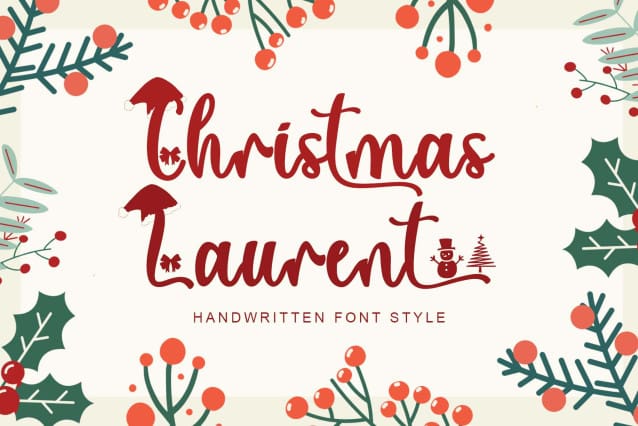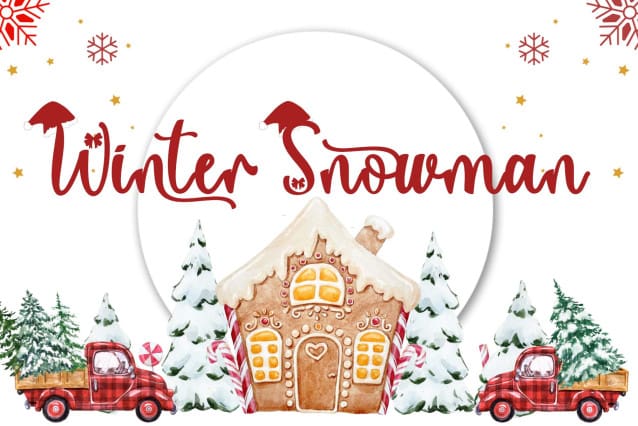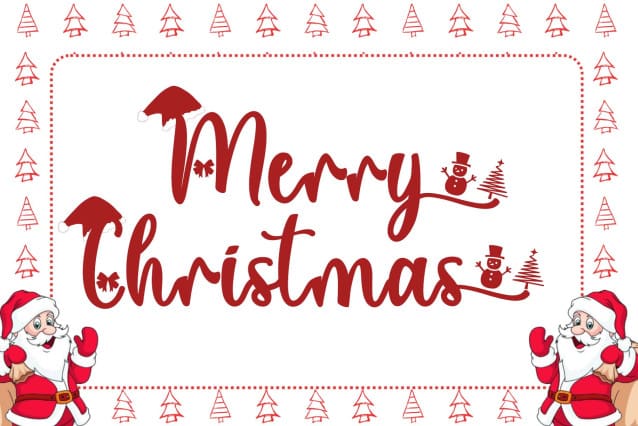
Christmas Laurent Font
Christmas Laurent Font is a beautiful and unique handwritten font with Christmas decorations on the letters. Equipped with uppercase letters, lowercase letters, numerals, punctuation, swash, titling, alternates, and multilingual support Very suitable for Christmas, Christmas gifts, Christmas decorations, Christmas ornaments, winter, and others.